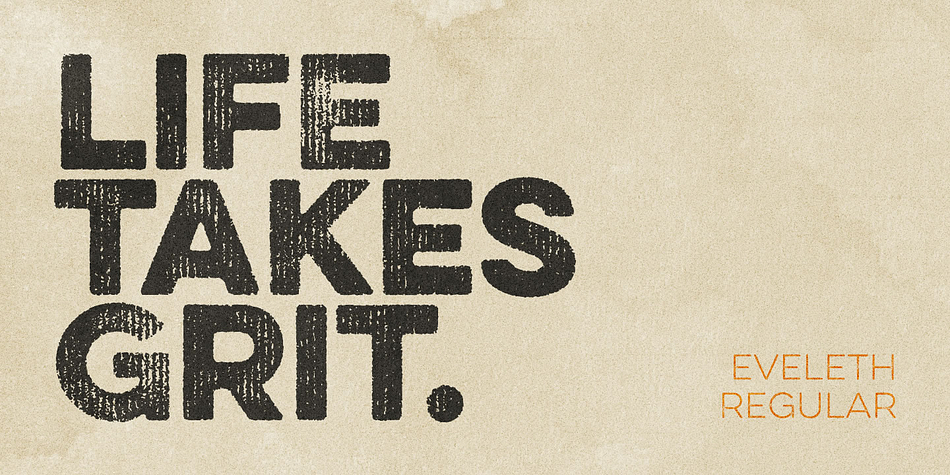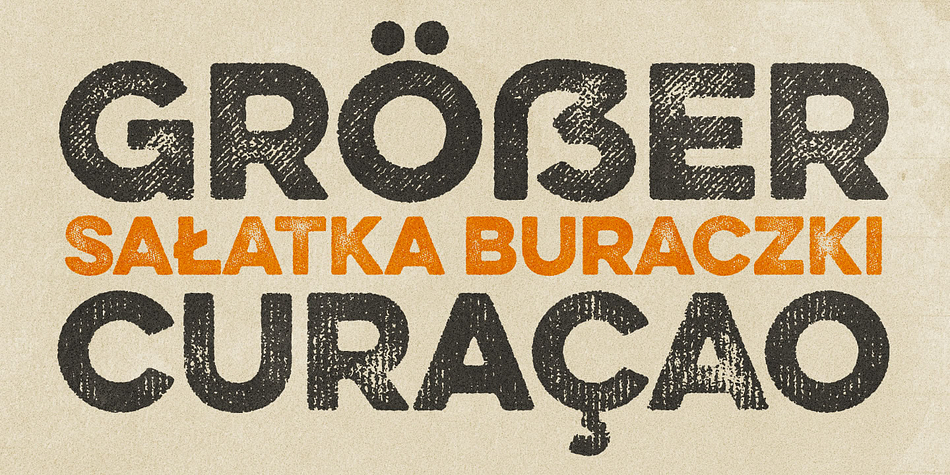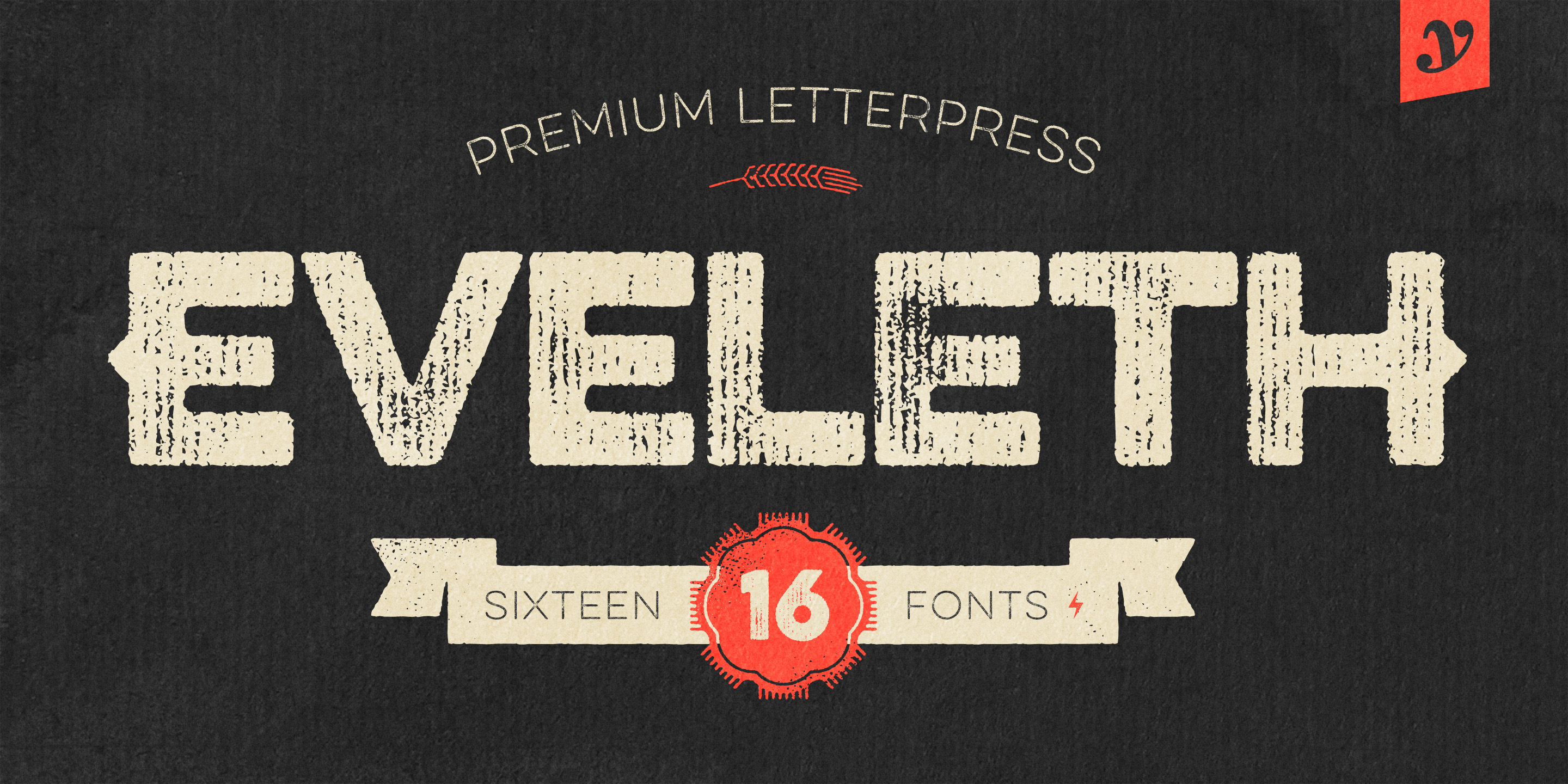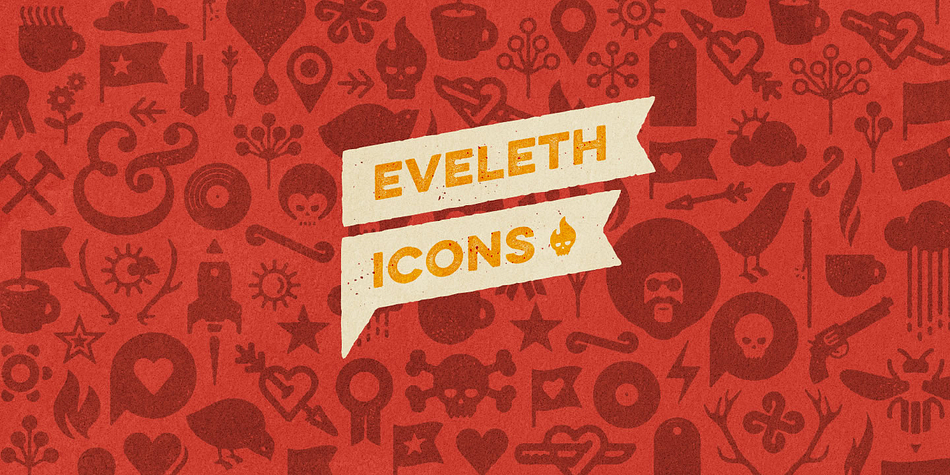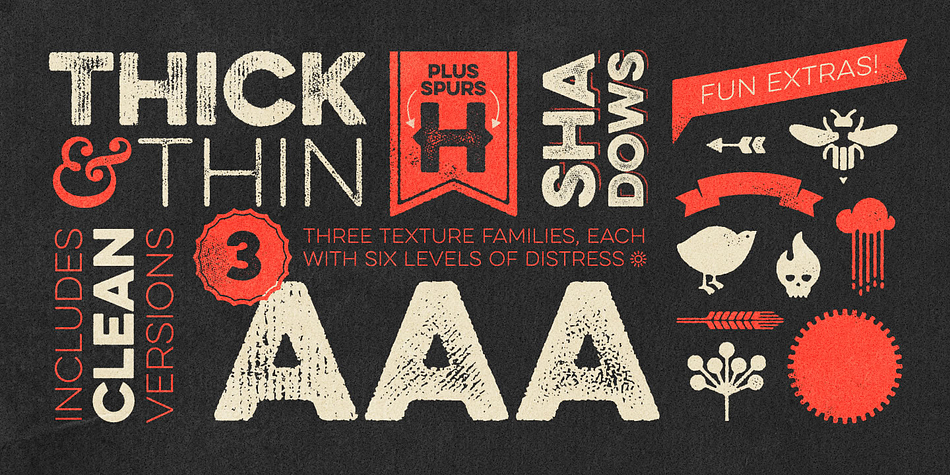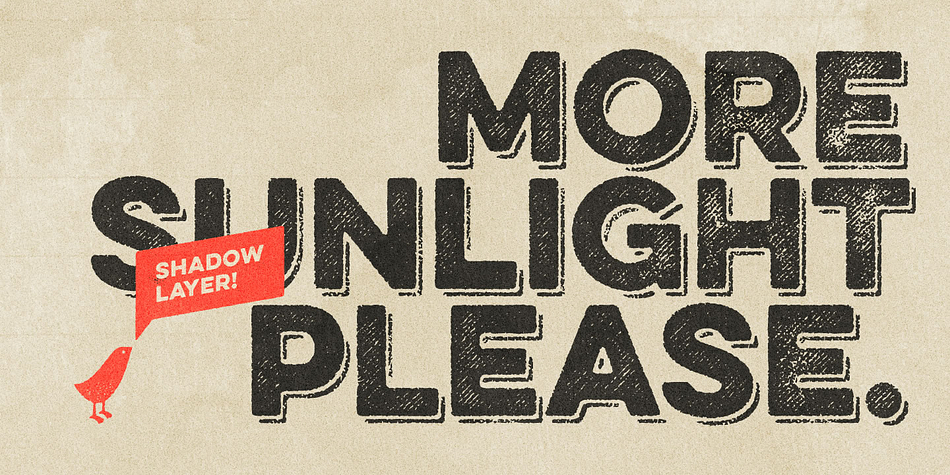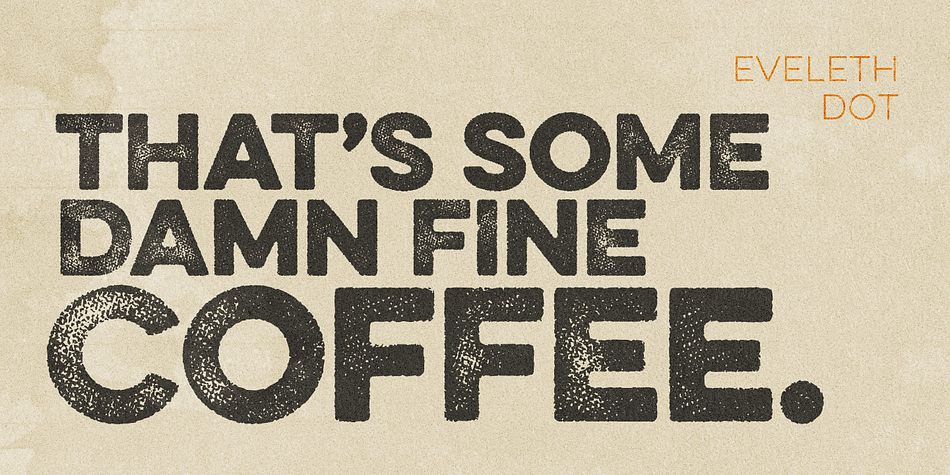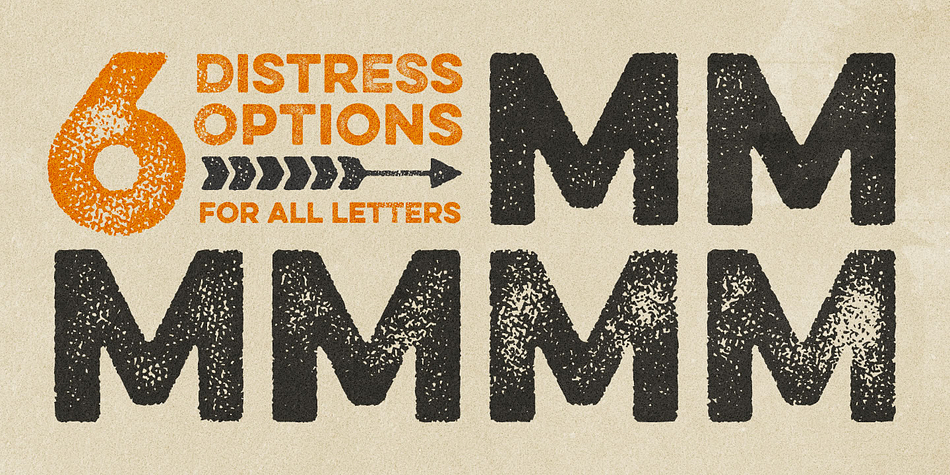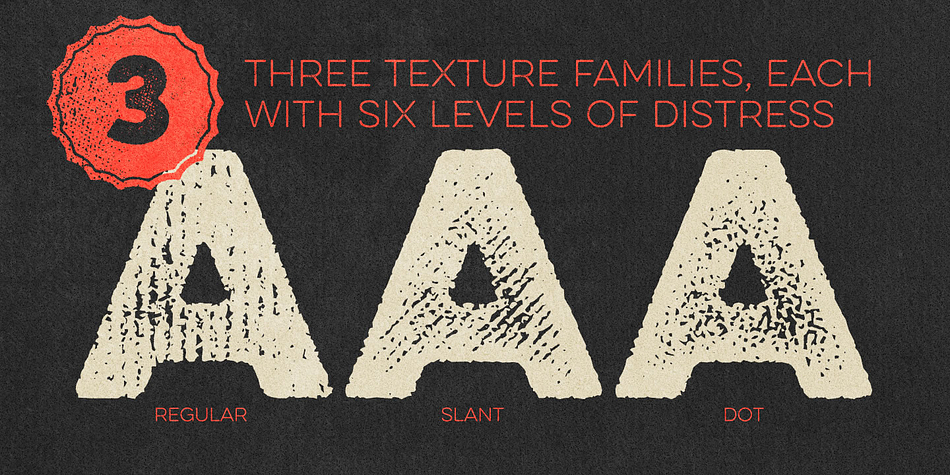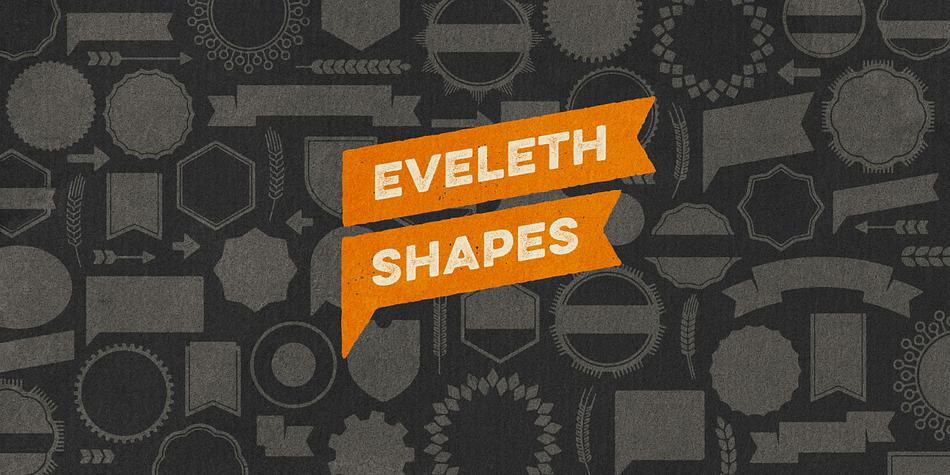
Eveleth is a dingbat, grunge and display sans font family. This typeface has sixteen styles and was published by Yellow Design Studio.
Eveleth from Yellow Design Studio is a premium high-resolution letterpress family with exceptional realism and vintage charm. It features 3 different sub-families each with its own unique printed texture. Each sub-family offers six distress options per letter and 3 options for all other characters allowing incredible control and customization. Bonus “spurs” have been included in every weight to add retro flair. Other features include a complimentary Thin weight, a shadow layer, a set of funky icons, a collection of useful shapes and emblems, and clean (non-distressed) versions.